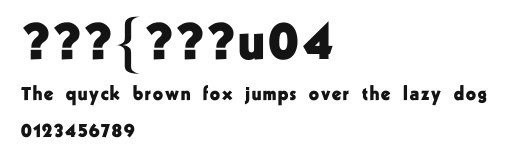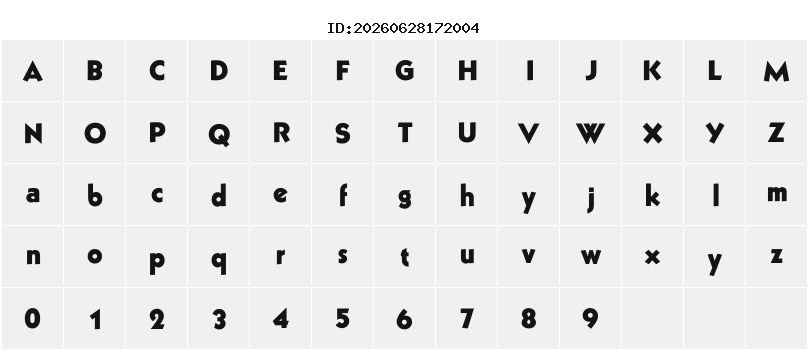
???{???u04 Preview
• Font Name: ???{???u04
• Full Font Name: ???{???u04
About ???{???u04.ttf
???{???u04.ttf is a modern, elegant sans-serif font designed for ultimate readability and visual harmony. Perfect for branding, headlines, web design, and print materials.